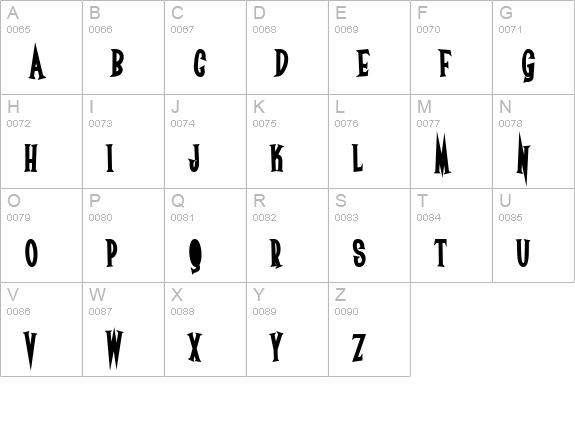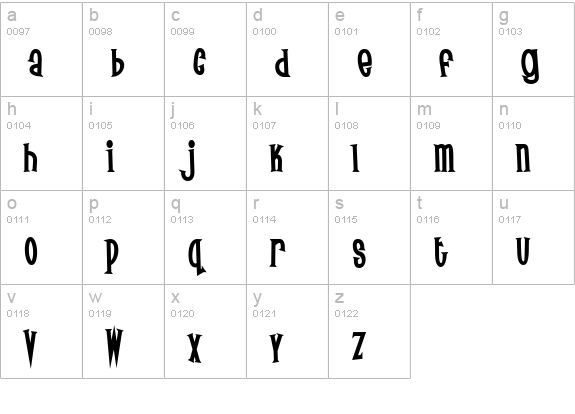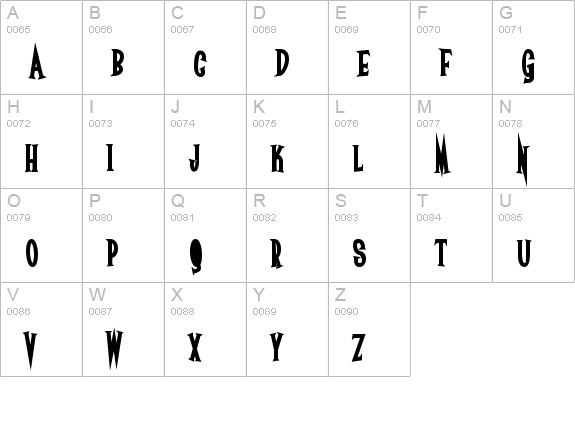
Introducing Surf Safari font, a playful and adventurous typeface that exudes a carefree and energetic vibe. Inspired by the thrill of riding the waves and exploring the great outdoors, this font captures the essence of a surf safari experience with its bold and dynamic letterforms. Whether you're designing for a beach party flyer, a surfing blog, or a summer-themed project, Surf Safari font is sure to make a splash. And the best part? Surf Safari font is completely free to download at FontsMarket.com. So dive in, ride the wave of creativity, and bring a touch of surf safari charm to your next design project with this vibrant and versatile typeface.